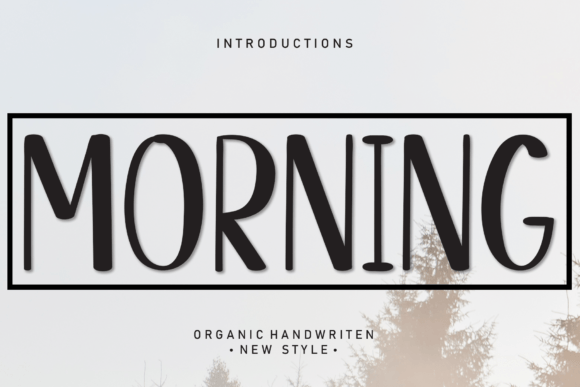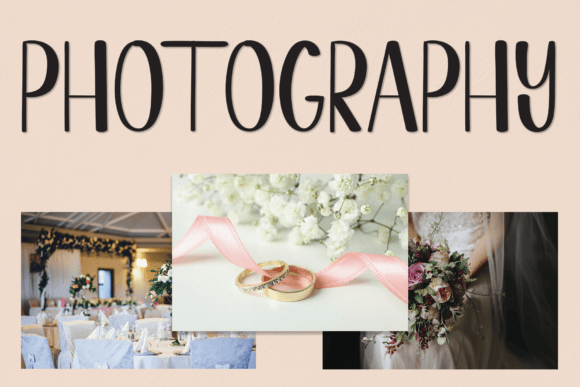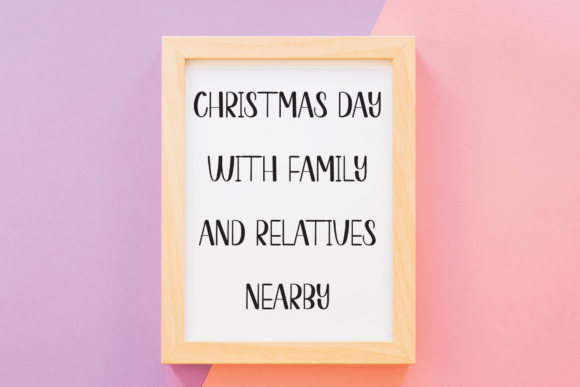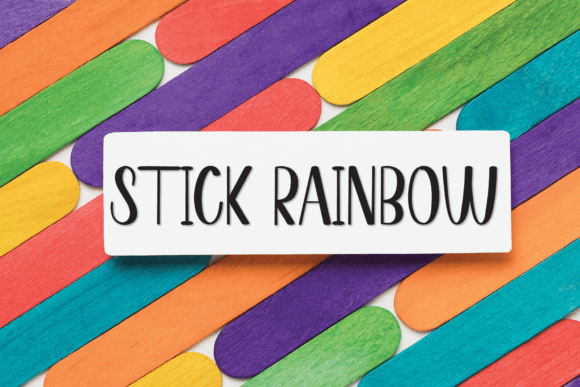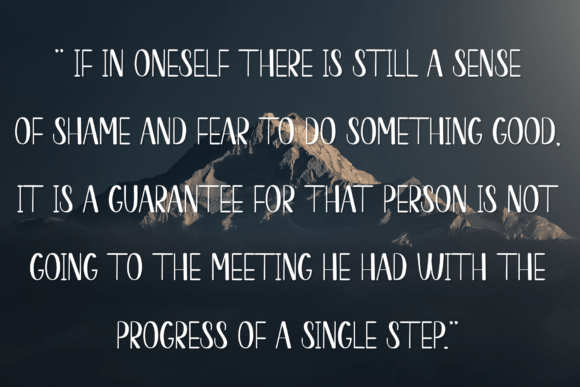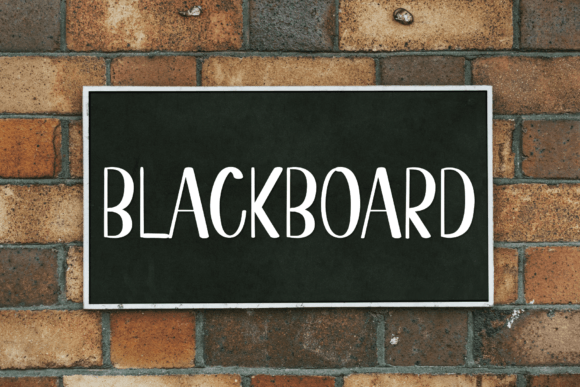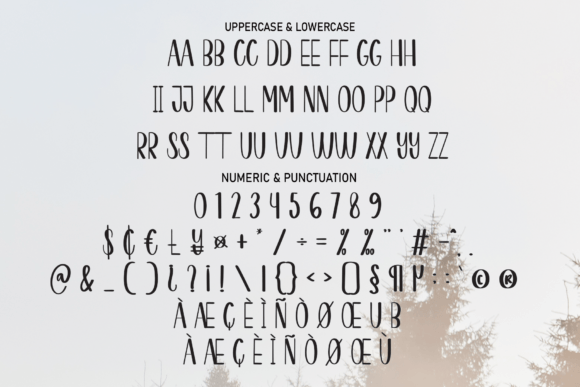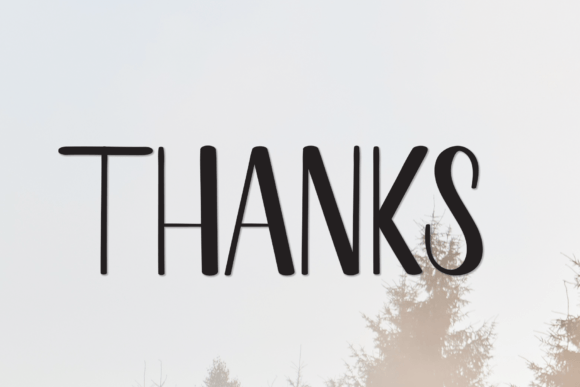
About Morning
the latest style letters are perfect for wall displays, wedding invitations, social media post logos,
advertisements, product packaging, product designs, labels, photography, watermarks, invitations, stationery,
and any project that requires taste handwriting.